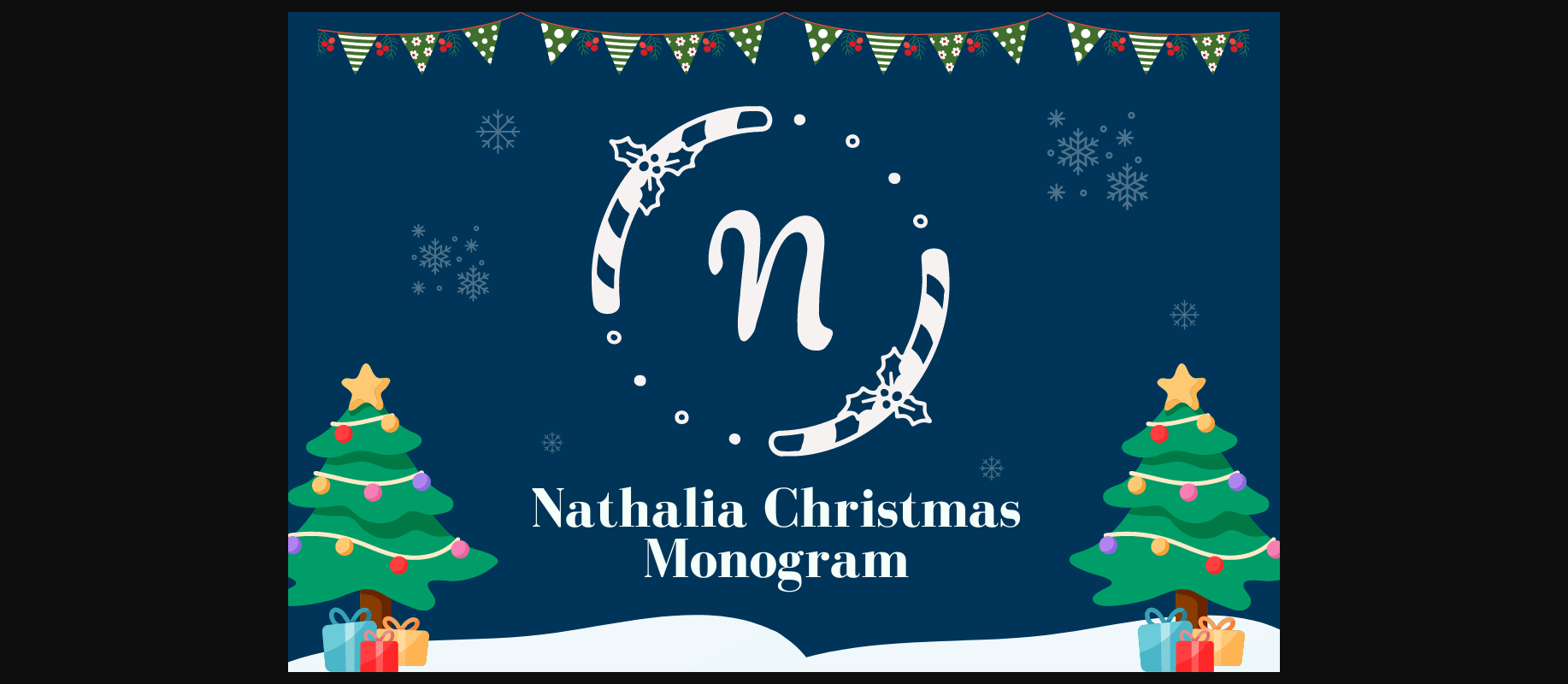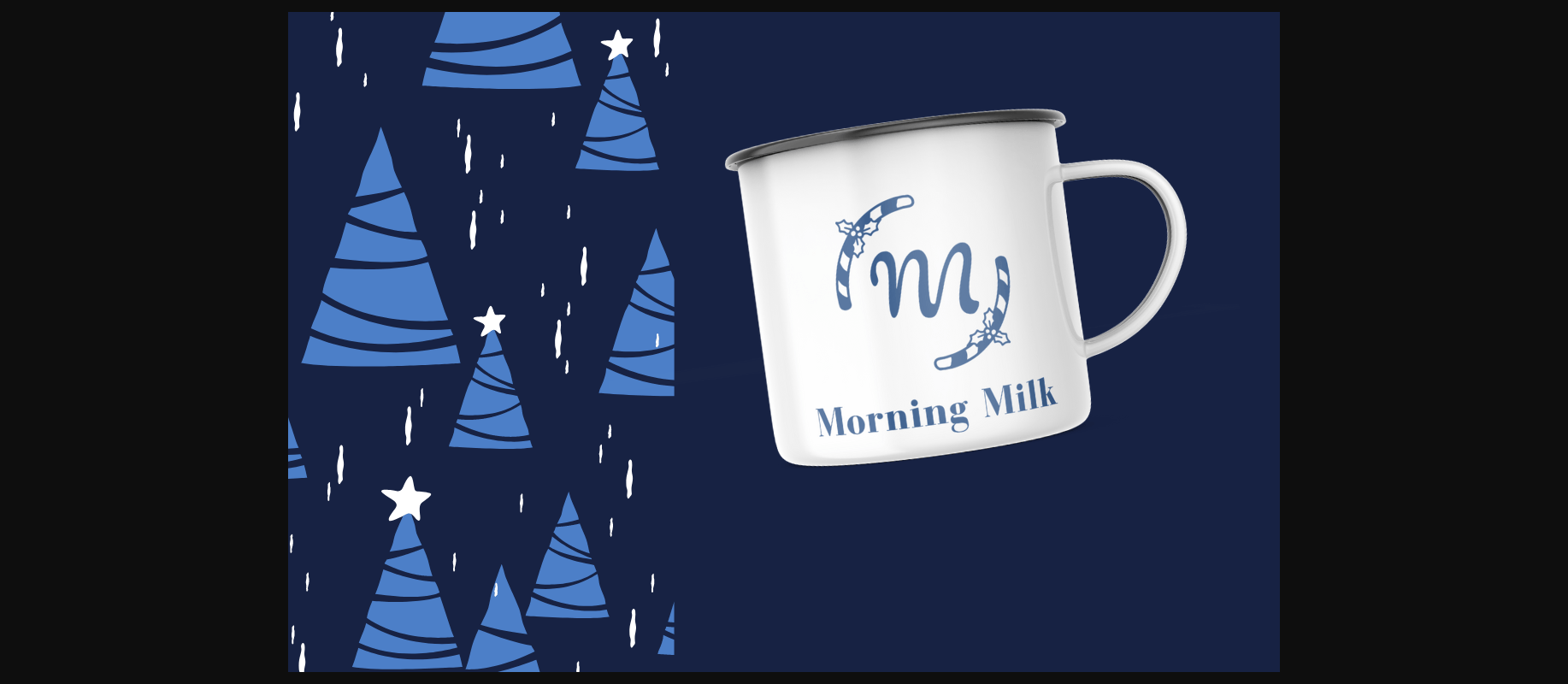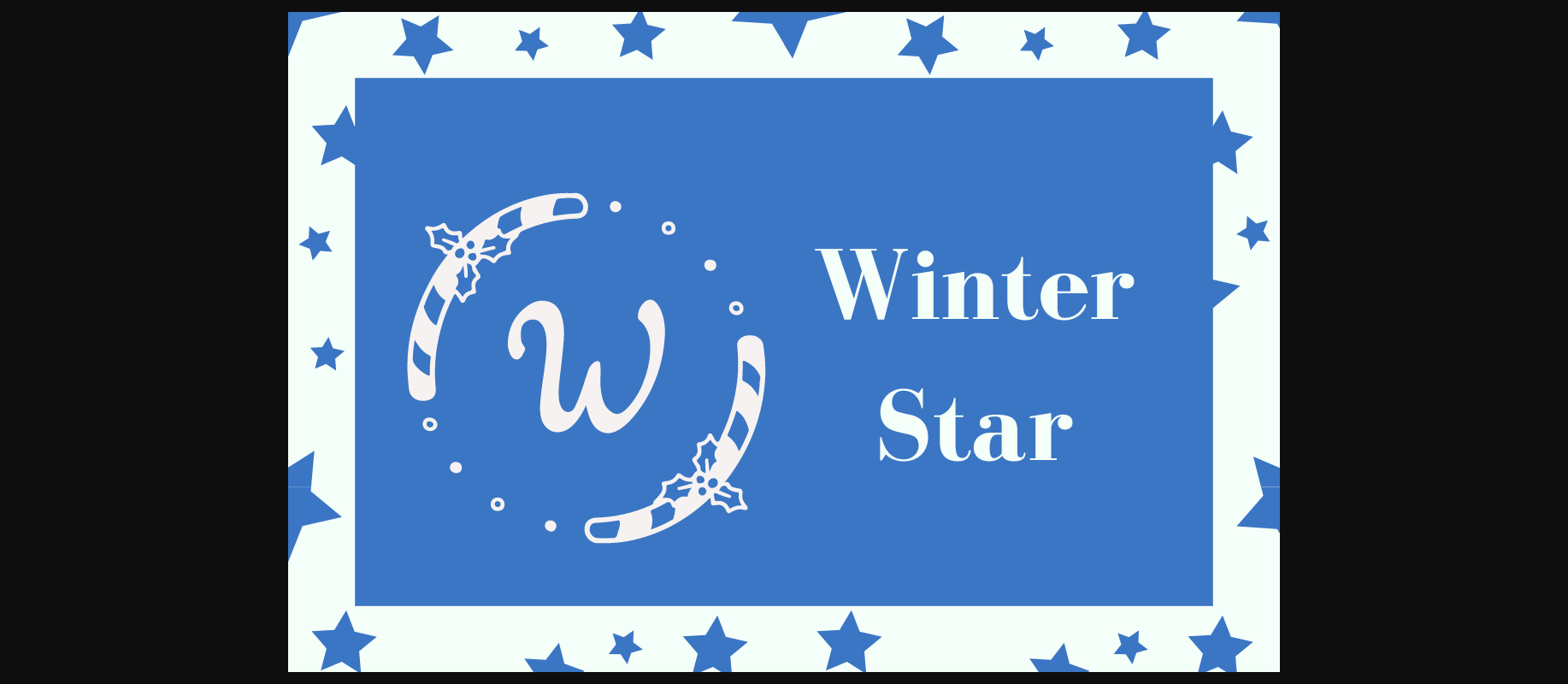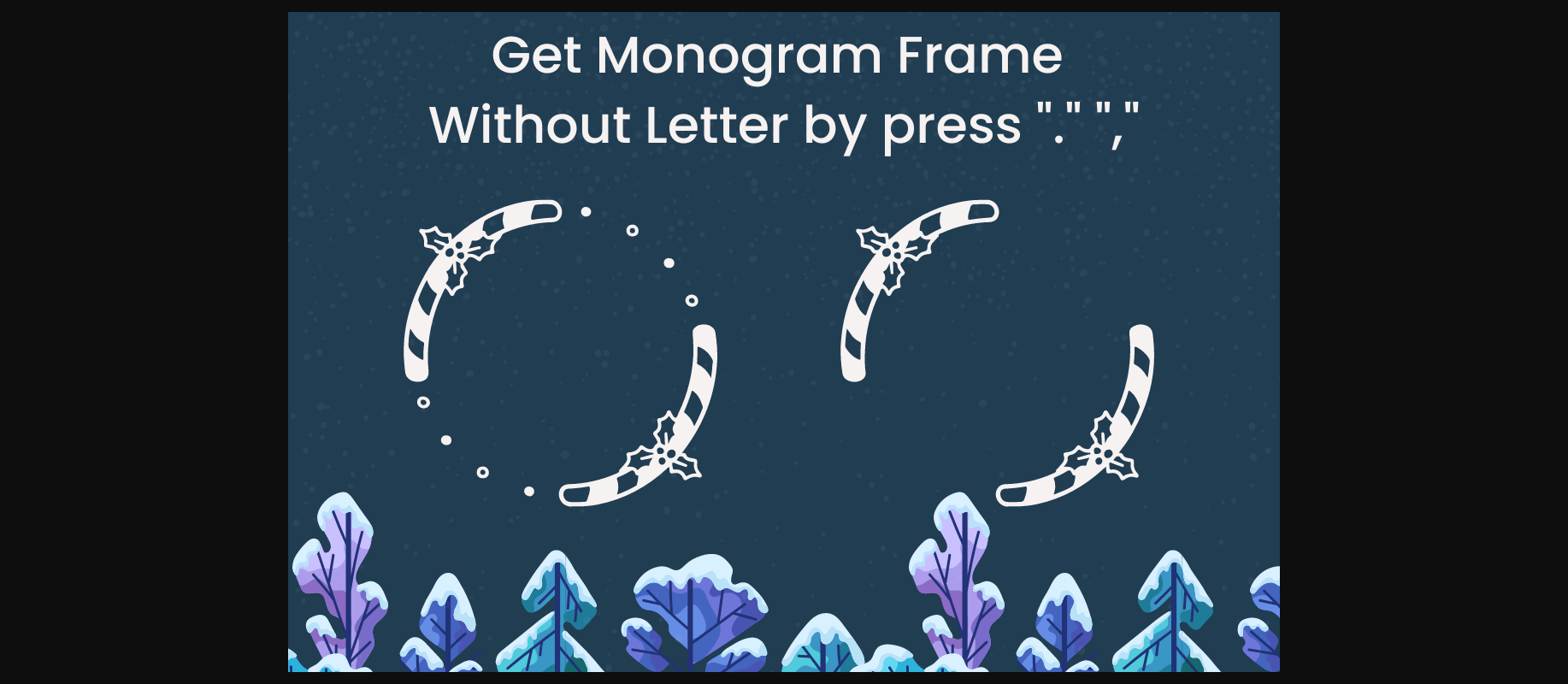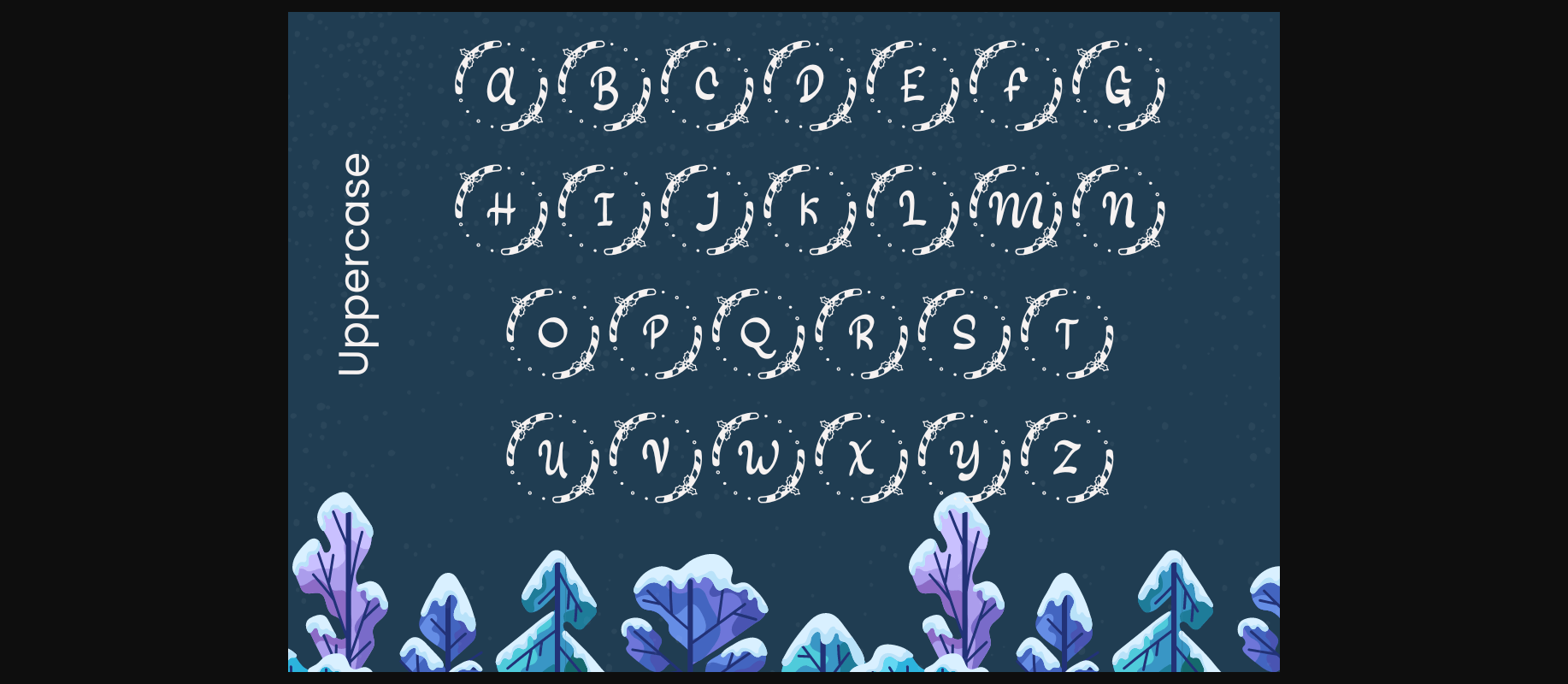
About Nathalia Christmas Monogram Font
Nathalia Christmas Monogram is elegant & perfect for special occasions, business designs, logos, branding, social media posts, and wedding cards.
Comes in 2 Christmas styles.
Just simply change between uppercase and lowercase to see the different styles!